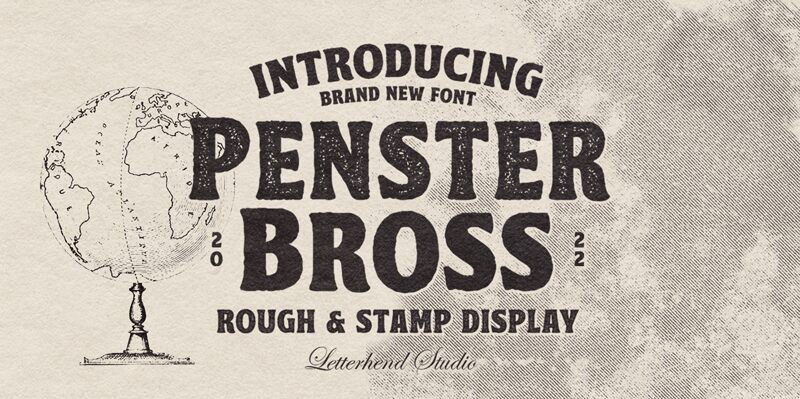
Penster Bross Rough is a display font from Letterhend Studio that exudes a raw and rugged aesthetic. Its eroded style adds an edge to any design project, making it suitable for branding materials, packaging designs, album covers, and posters. This extra-bold font demands attention and commands authority on any medium. Penster Bross Rough's unique texture gives a vintage feel that is perfect for conveying authenticity and individuality in your designs. Let the boldness of this semi-serif typeface give your projects an added punch and make them stand out from the crowd.